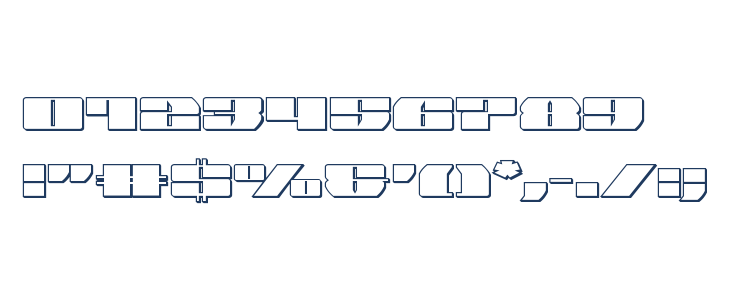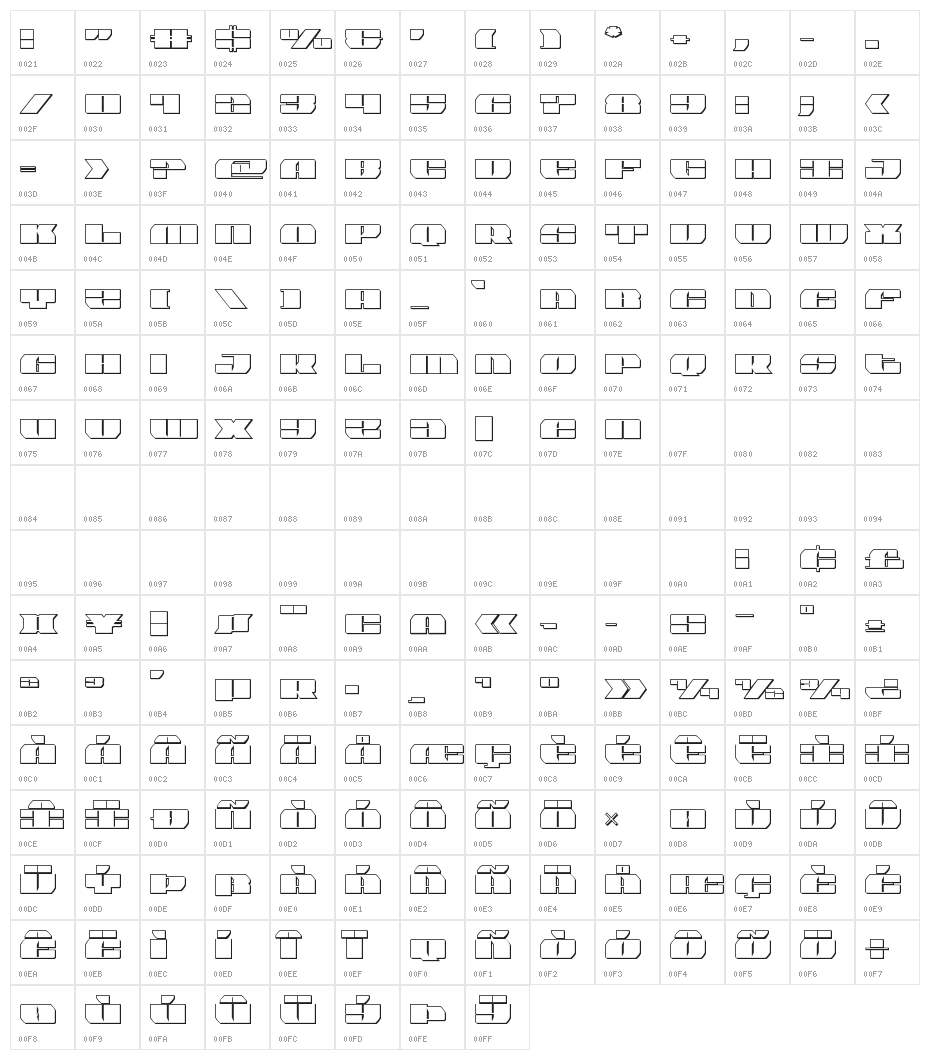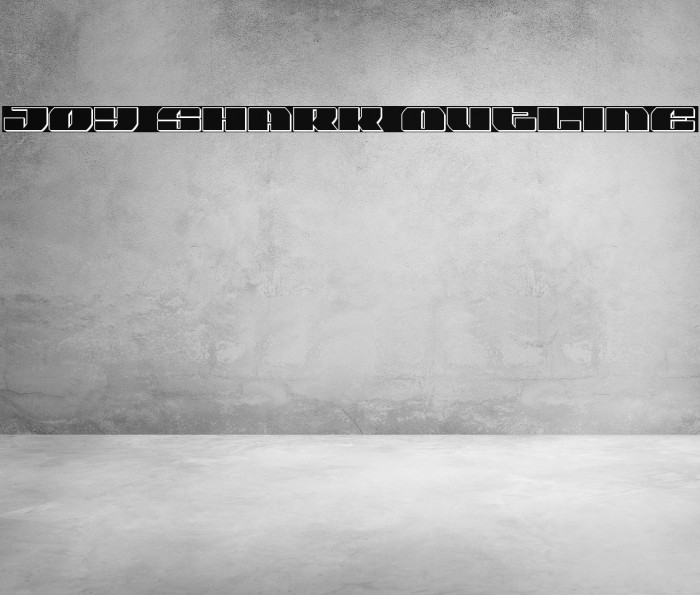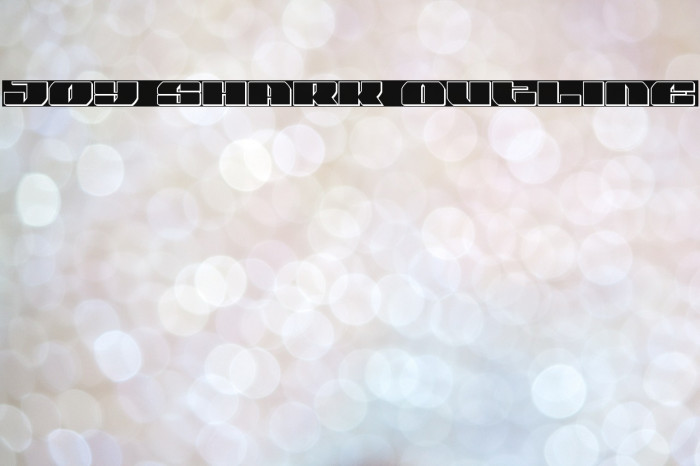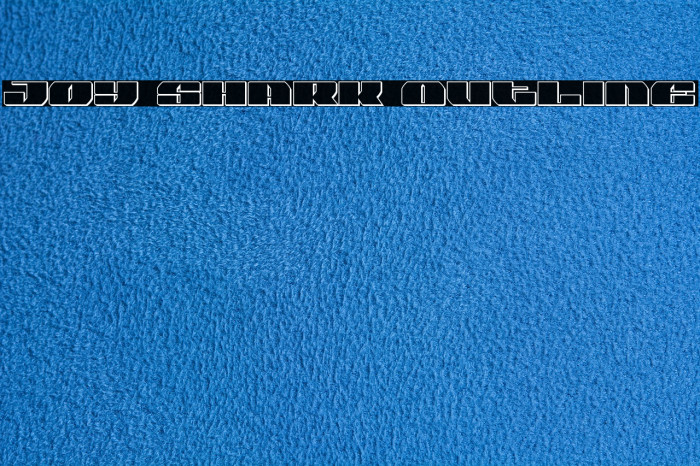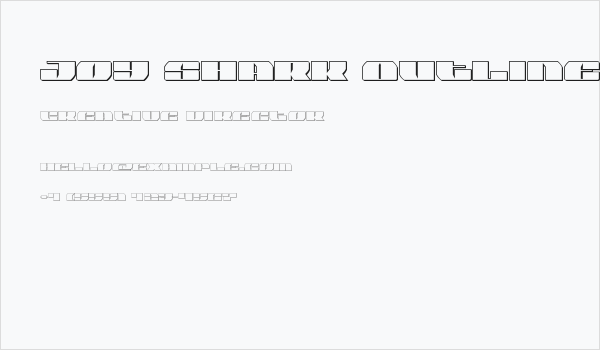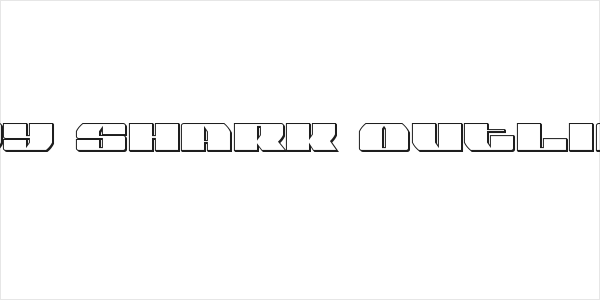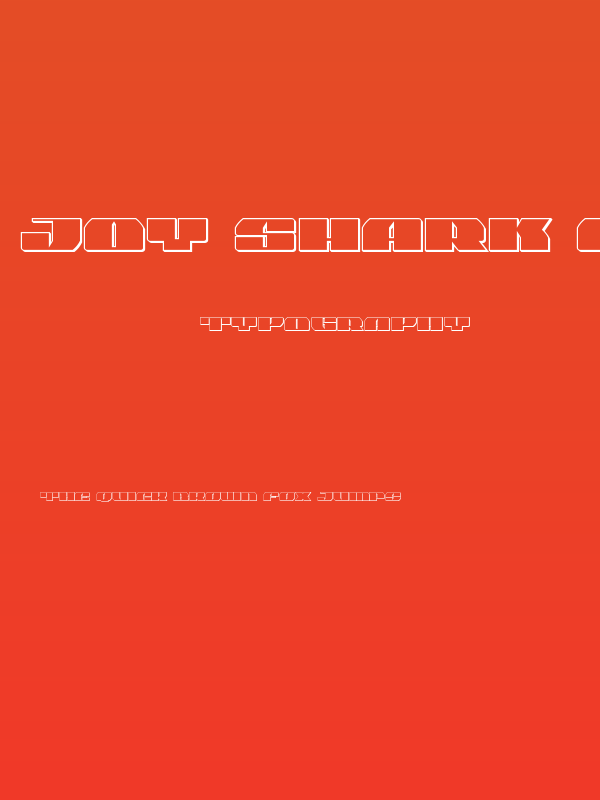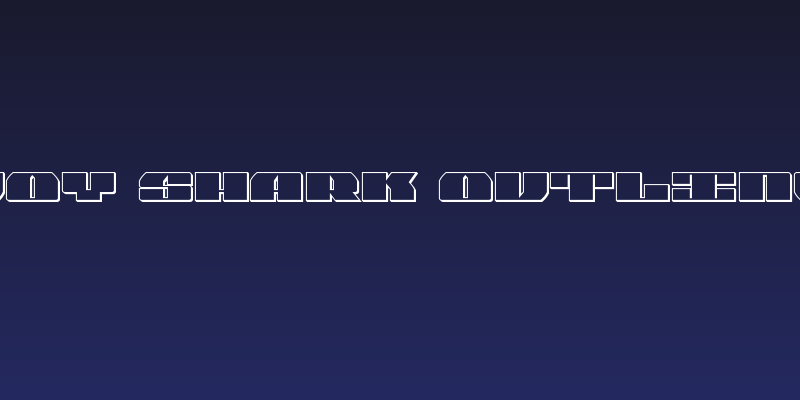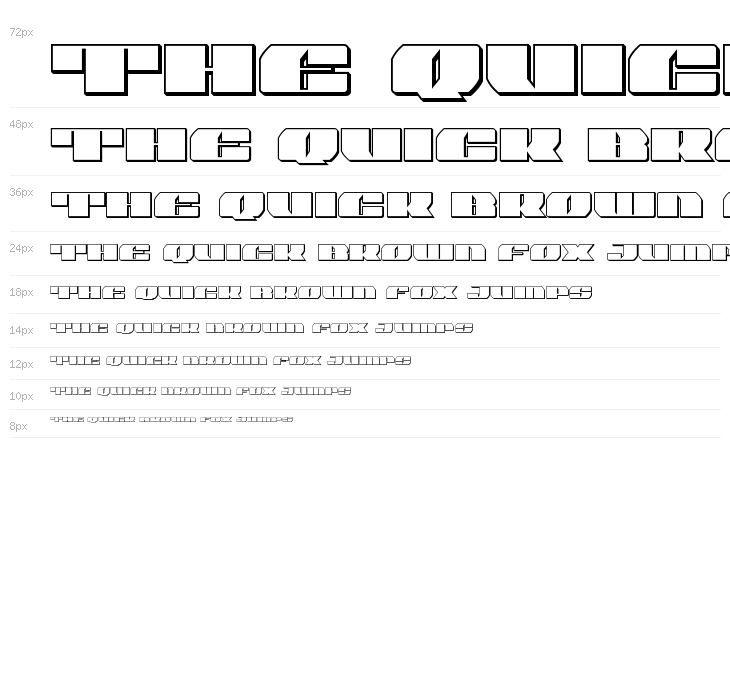
Joy Shark Outline Font
Joy Shark Outline Description
This font features a bold, geometric outline style that gives it a modern and futuristic appearance. The characters are constructed with sharp angles and straight lines, creating a blocky and robust look. The outline design adds a unique dimension, making the characters appear as if they are carved out or hollowed. This style is consistent across uppercase, lowercase, numbers, and special characters, maintaining a cohesive visual identity. The font's design is eye-catching and ideal for projects that require a strong, impactful typeface.
| Proposed Projects | Ideal for branding, posters, video game graphics, and futuristic-themed designs. |